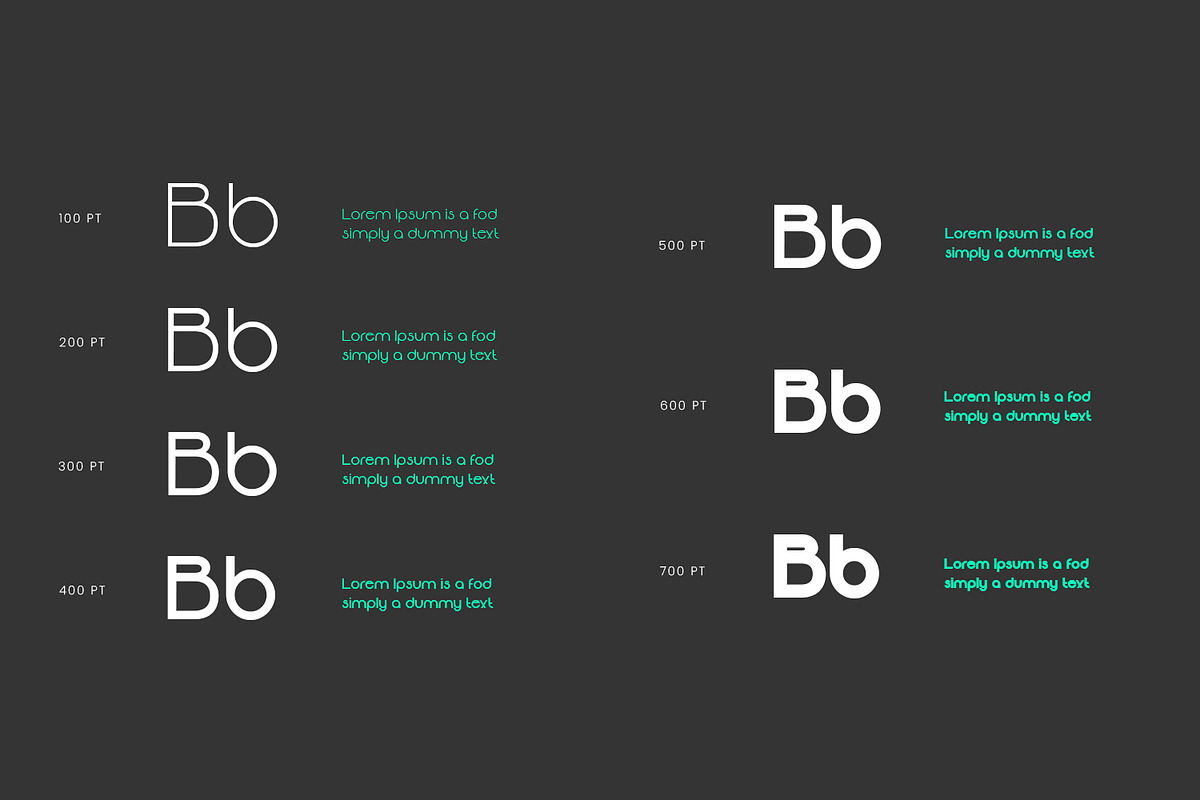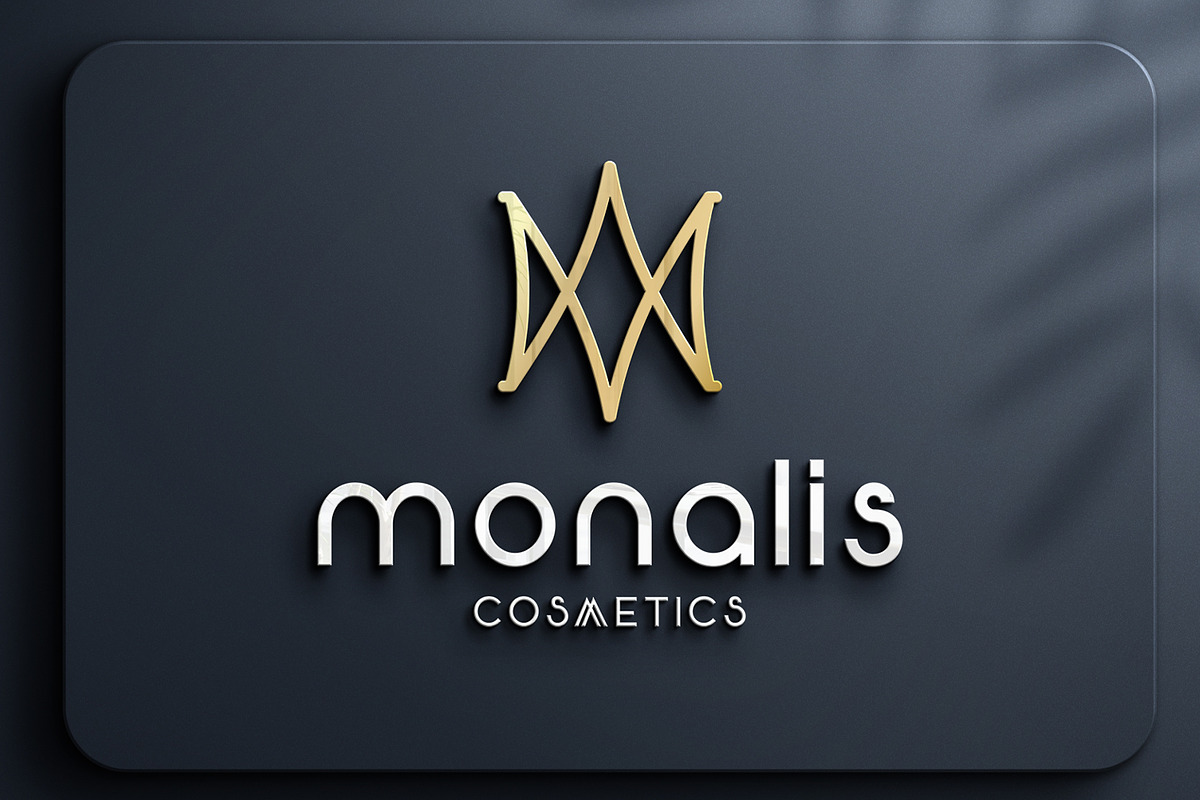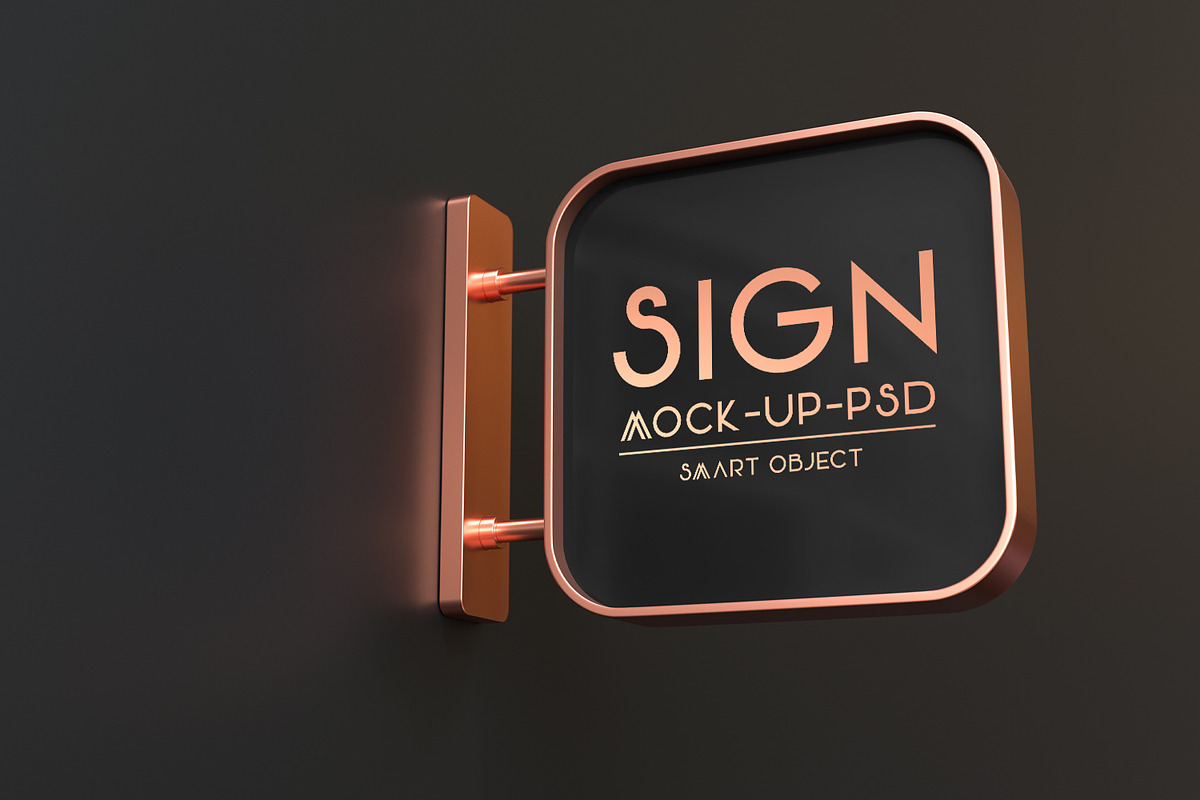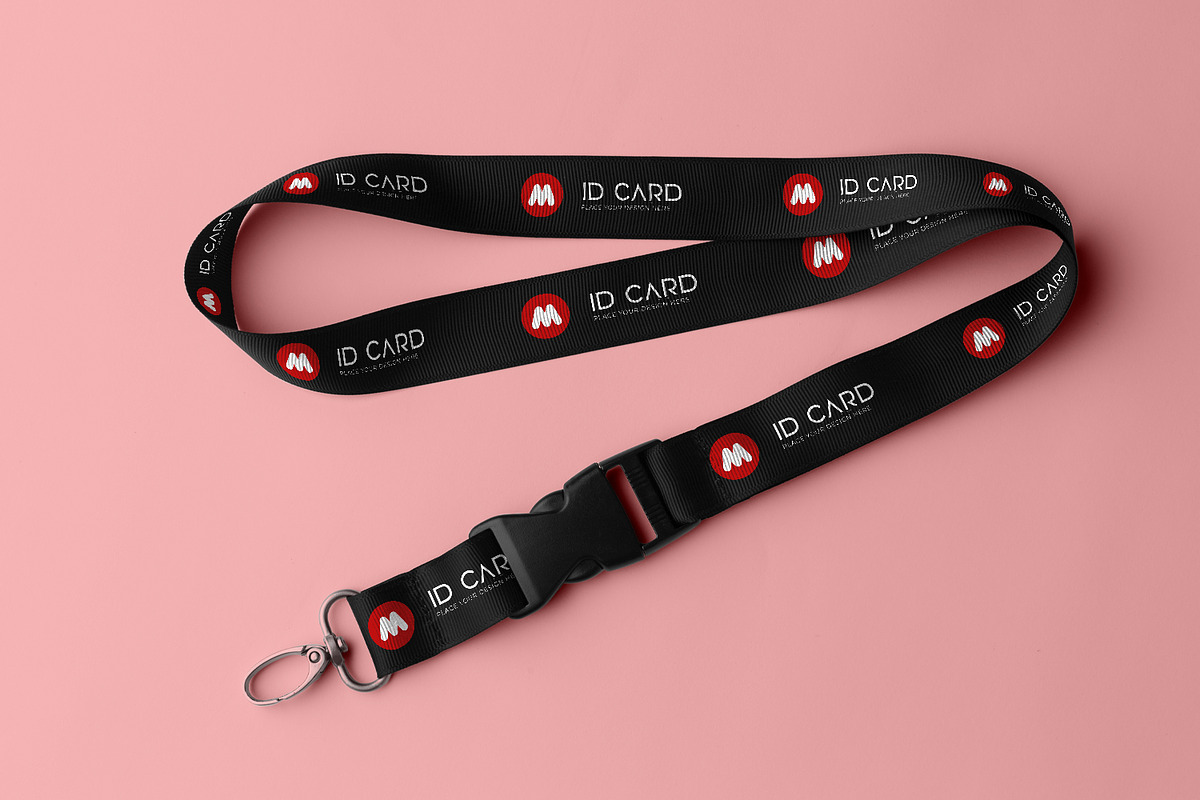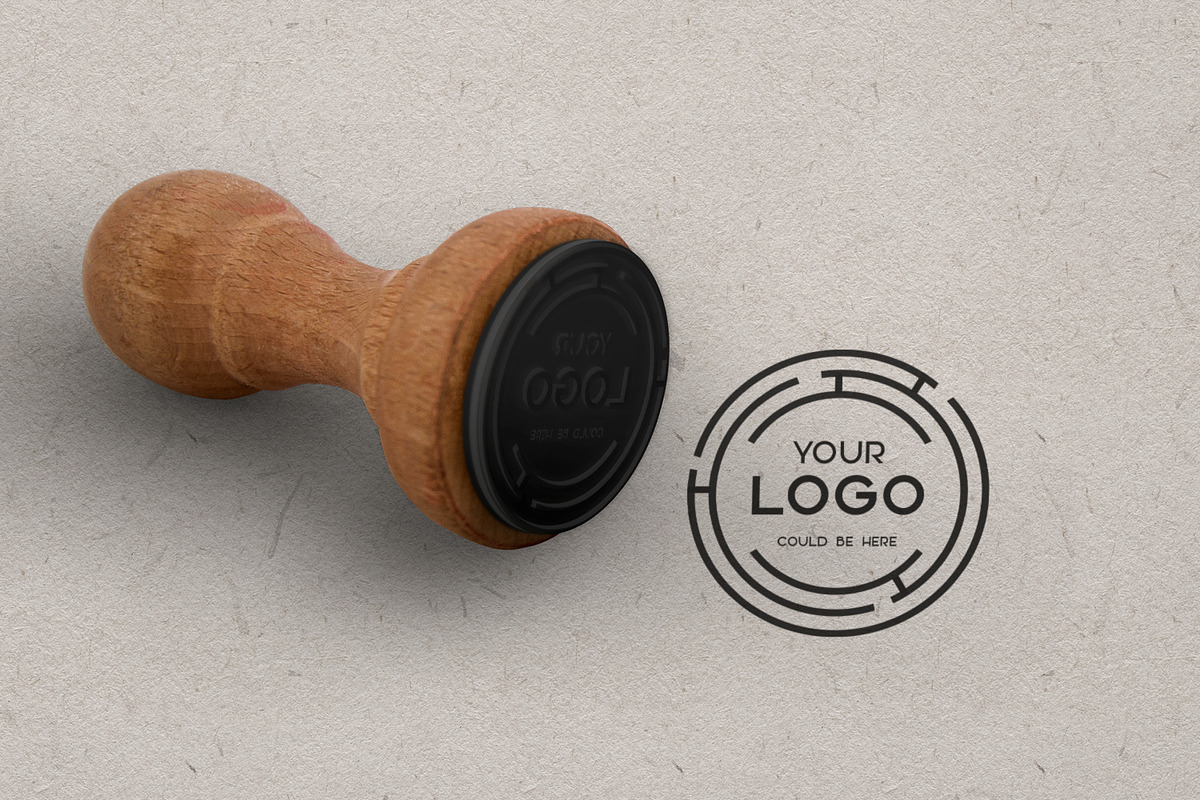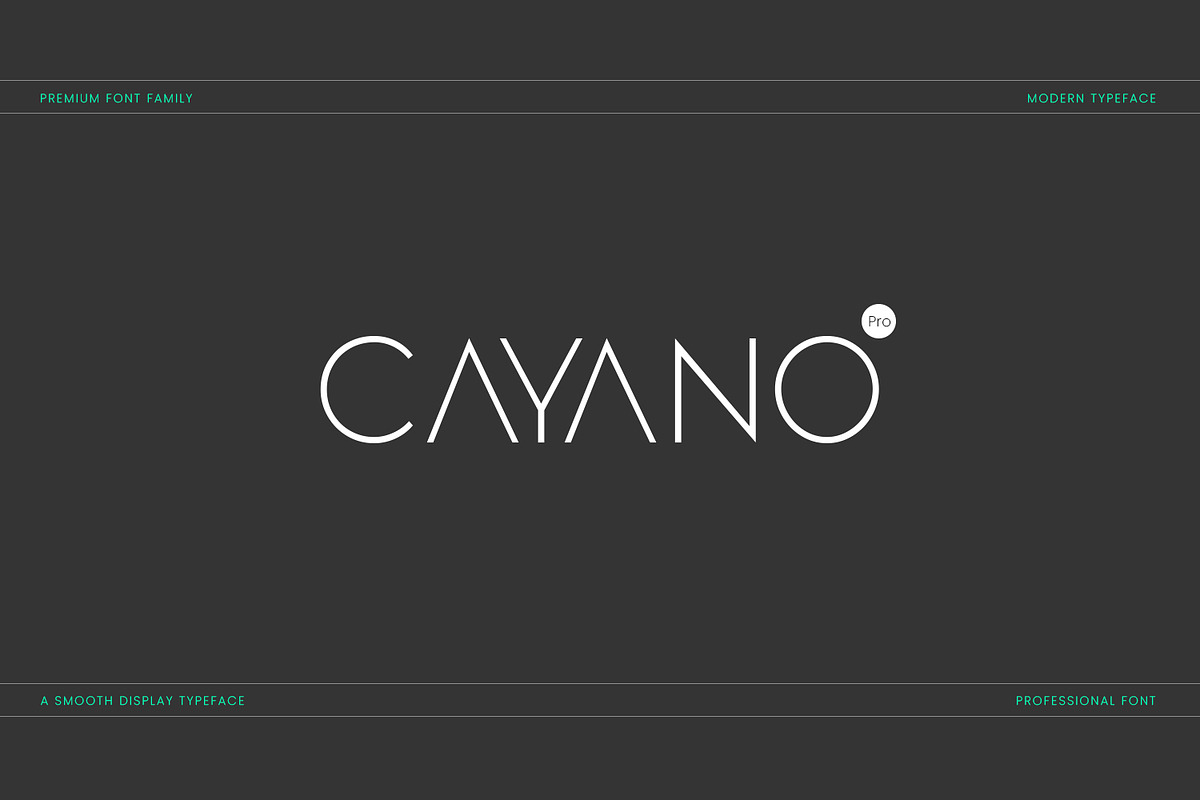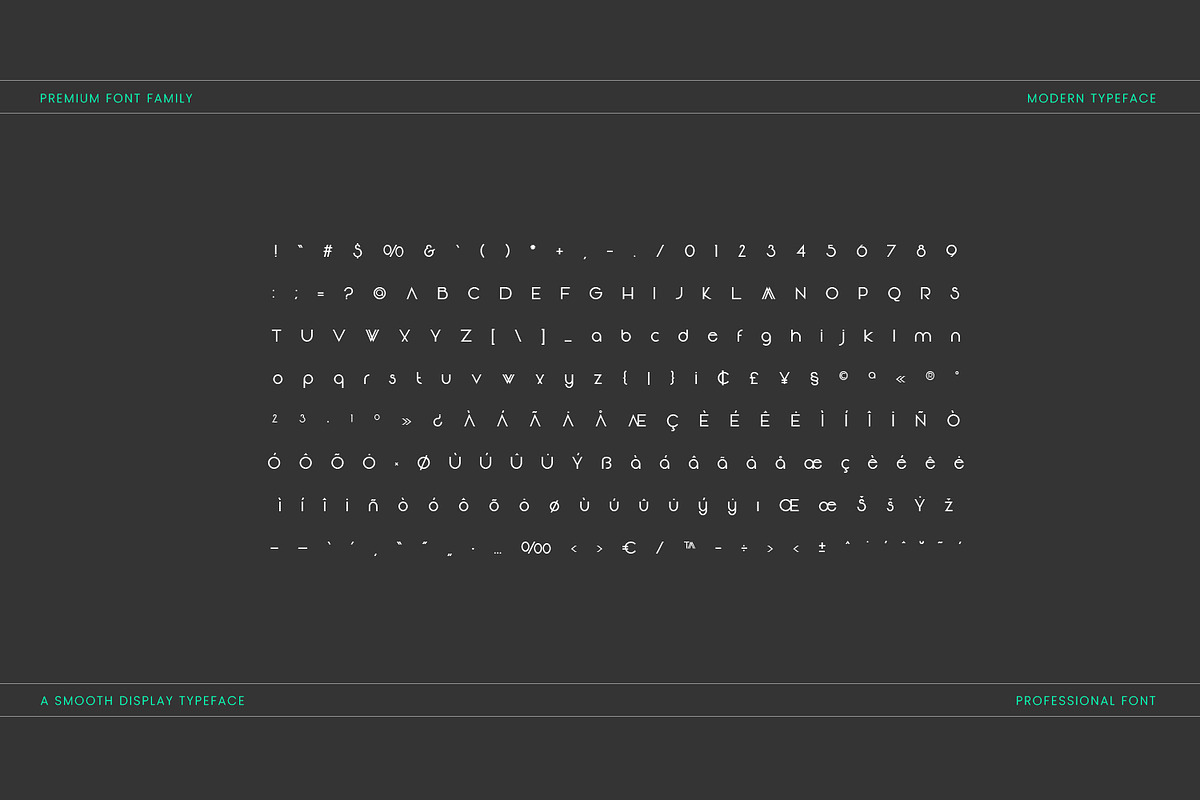
Cayano Pro Display
Cayano Pro Display is a stunning modern typeface that boasts clean lines, sharp edges, An extremely versatile font, It is perfect for logos, weddings, invitations, quotes, advertisements, print, magazines, and more!
What really makes Cayano Pro a special font is the small caps (available via the lowercase letters). Each small cap is the same thickness as the uppercase letters, making it super easy to create gorgeous logos
Cayano Display is perfect for designs that need to have a traditional, antique feel while still being sleek and minimalist. It will look fantastic with any logo, product name, poster, or design.
When describing it, words like elegant, minimal, classy, and modern come to mind. It’s great for fashion, clothing styles, signatures, album covers, magazines, social media, and advertisements, among other things. This font has 200 above glyphs and extensive Latin script support and upper and lowercase sans serif characters. Cayano Pro carries a powerful, unique, and social character line with a premium finish, giving a new impression. An elegant, authentic, and thin lettered sans serif font.
Cayano Pro Is a 6 Variant Font
Cayano Pro Display - Thin, ExtraLight, Light, Regular, Medium, SemiBold.